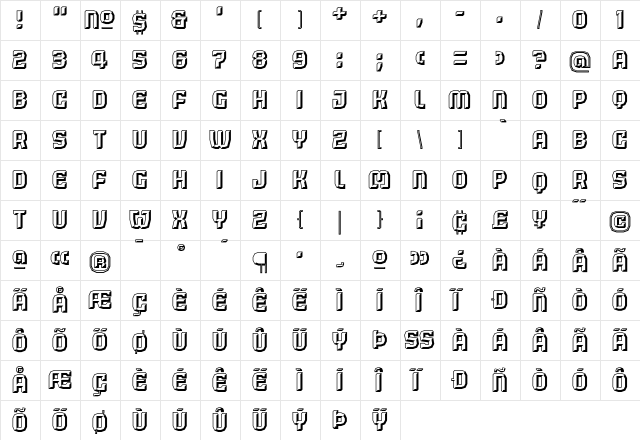
Judgement Regular Font Preview
Judgement Regular
Judgement Regular Font Details
| Foundry | n Hughes . A Device font |
Design Context for Judgement Typeface
Judgement is a composed and adaptable typeface that performs quietly and consistently across a wide range of design contexts.